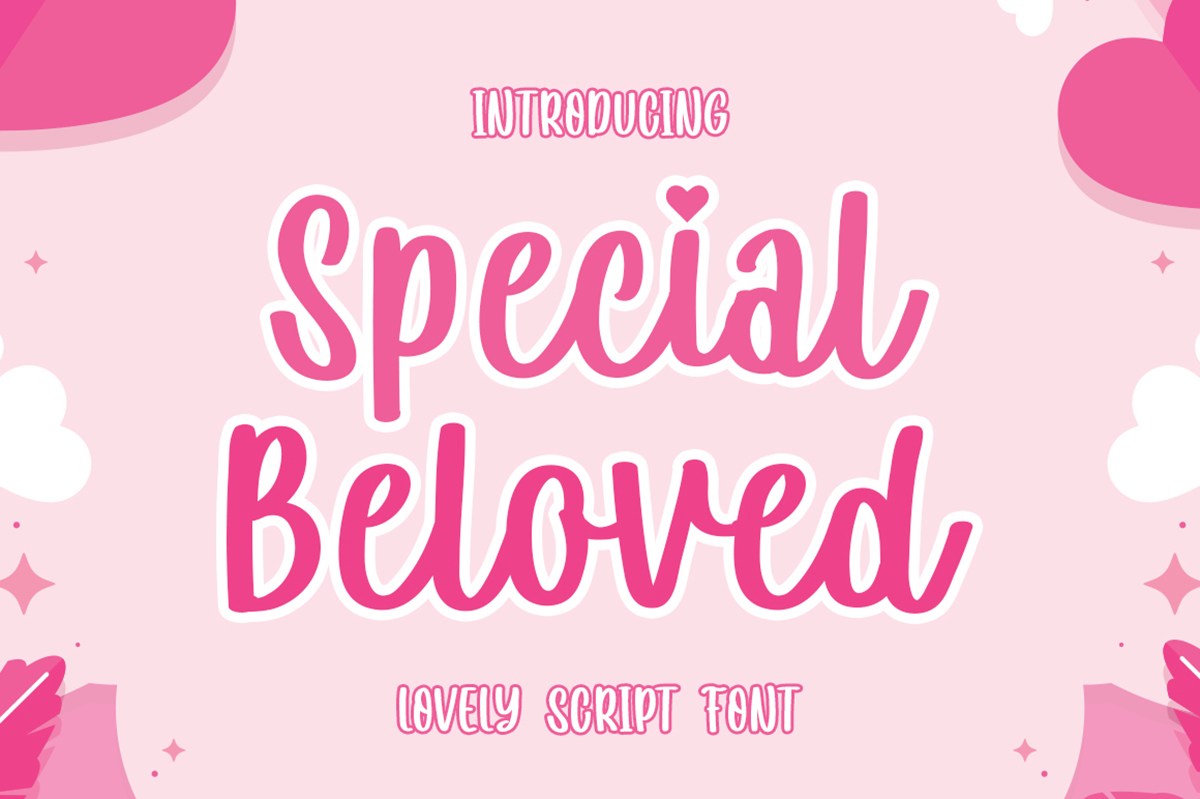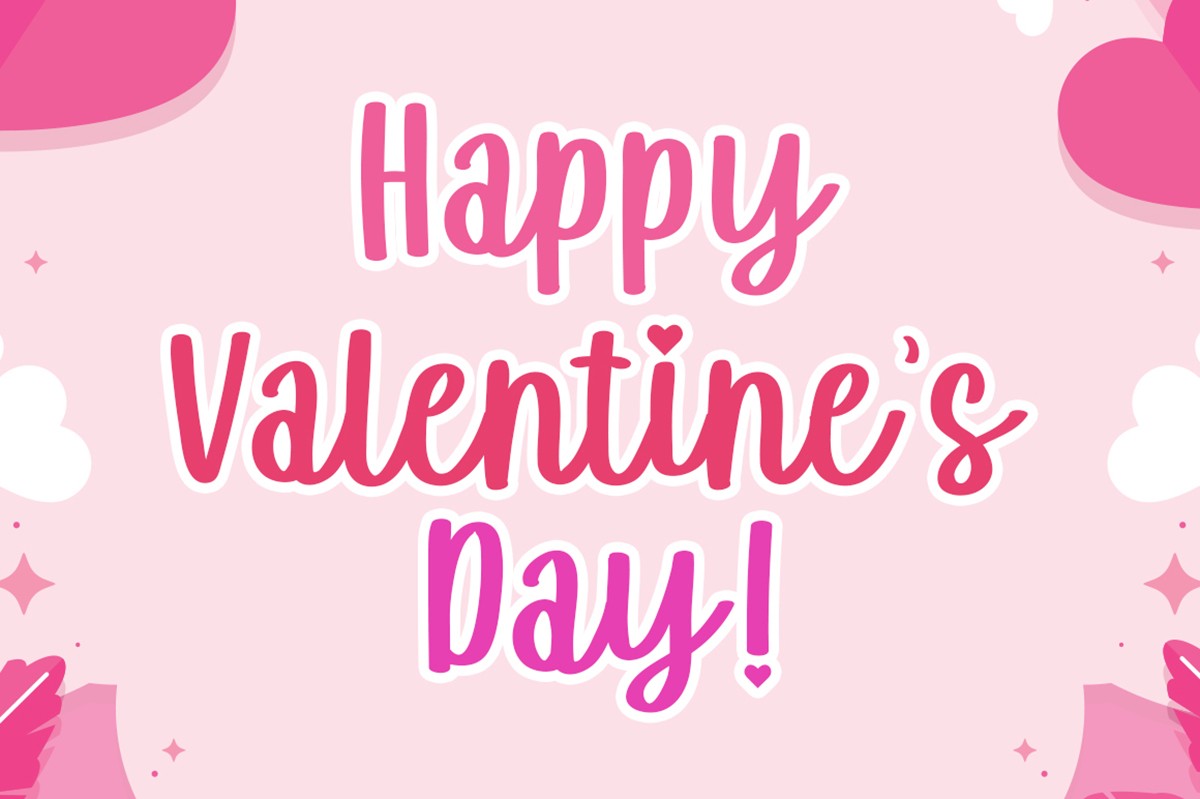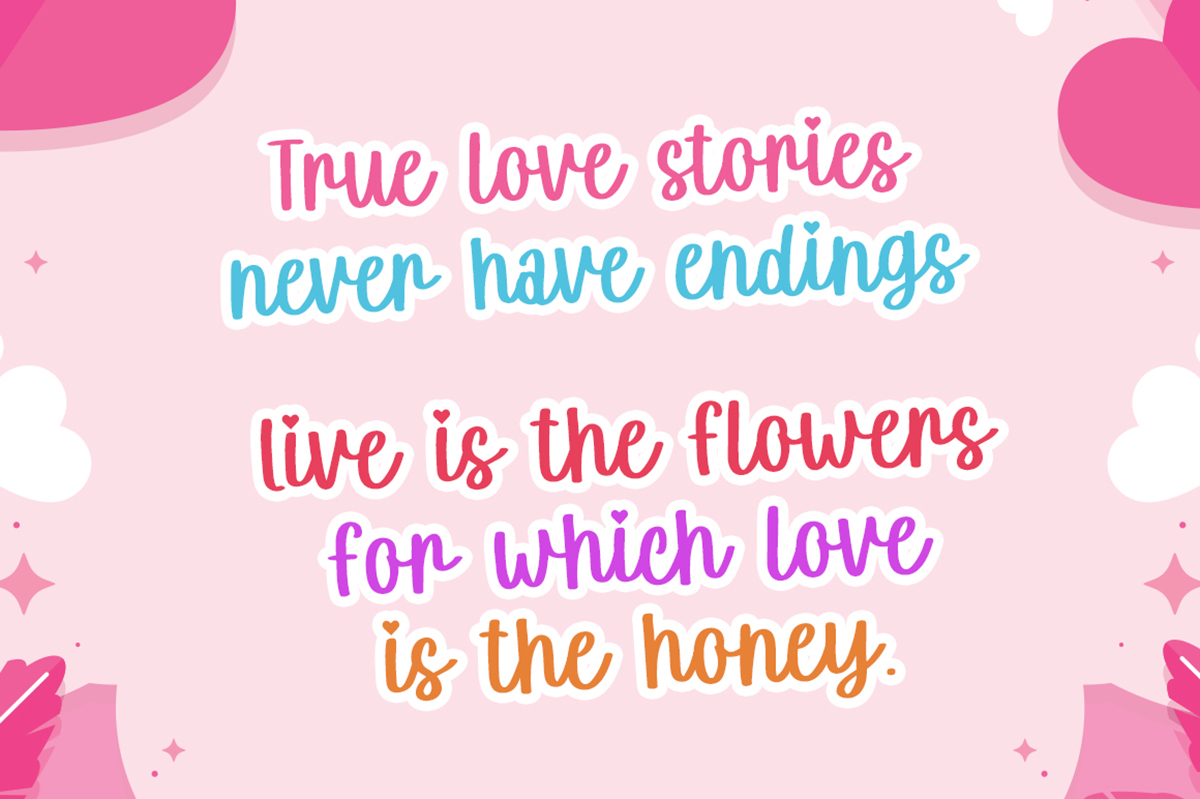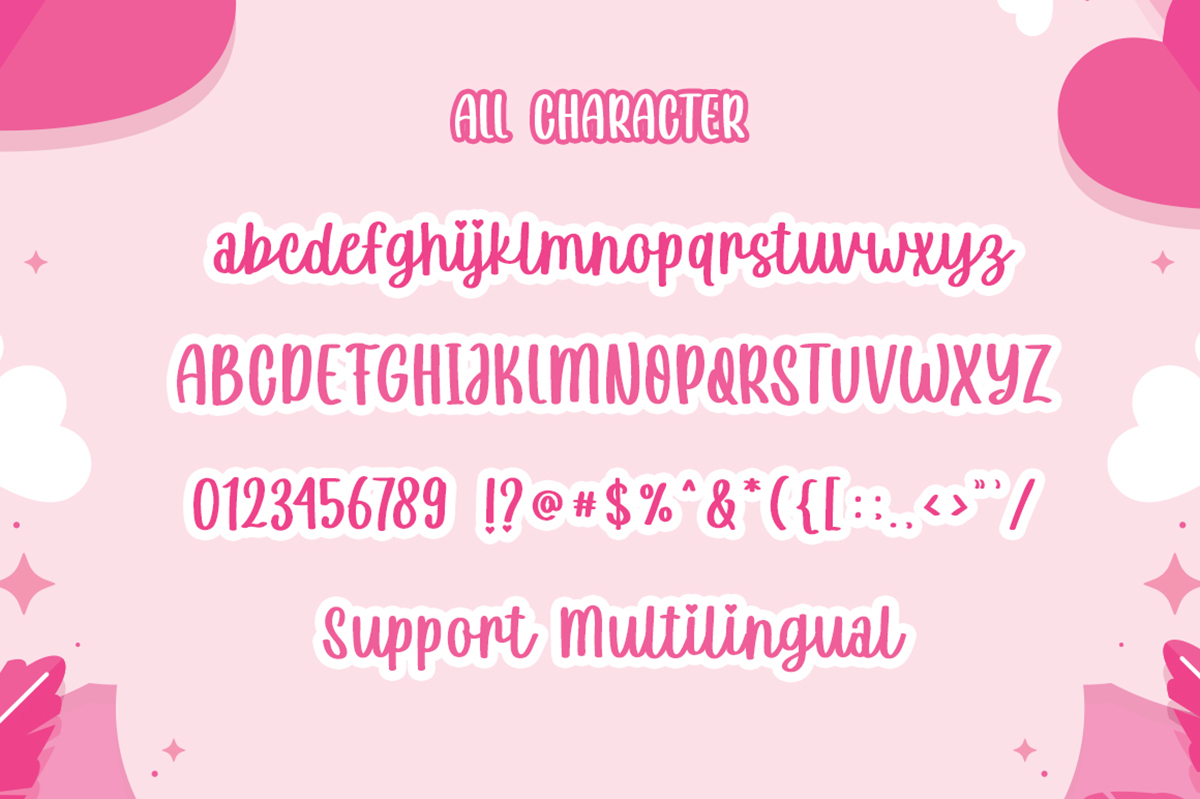
Special Beloved Free Font
Special Beloved Free Font is a lovely and beautiful handwritten font with a personal touch. The font is perfect for creating warm and inviting designs, such as wedding invitations, greeting cards, and personal blog headers. Its charming and casual script style adds a unique and handmade feel to any project, while its legibility makes it easy to use for longer text blocks. This free typeface was designed by a talented Bluestype Studio. If you like it don’t forget to check out the full version.